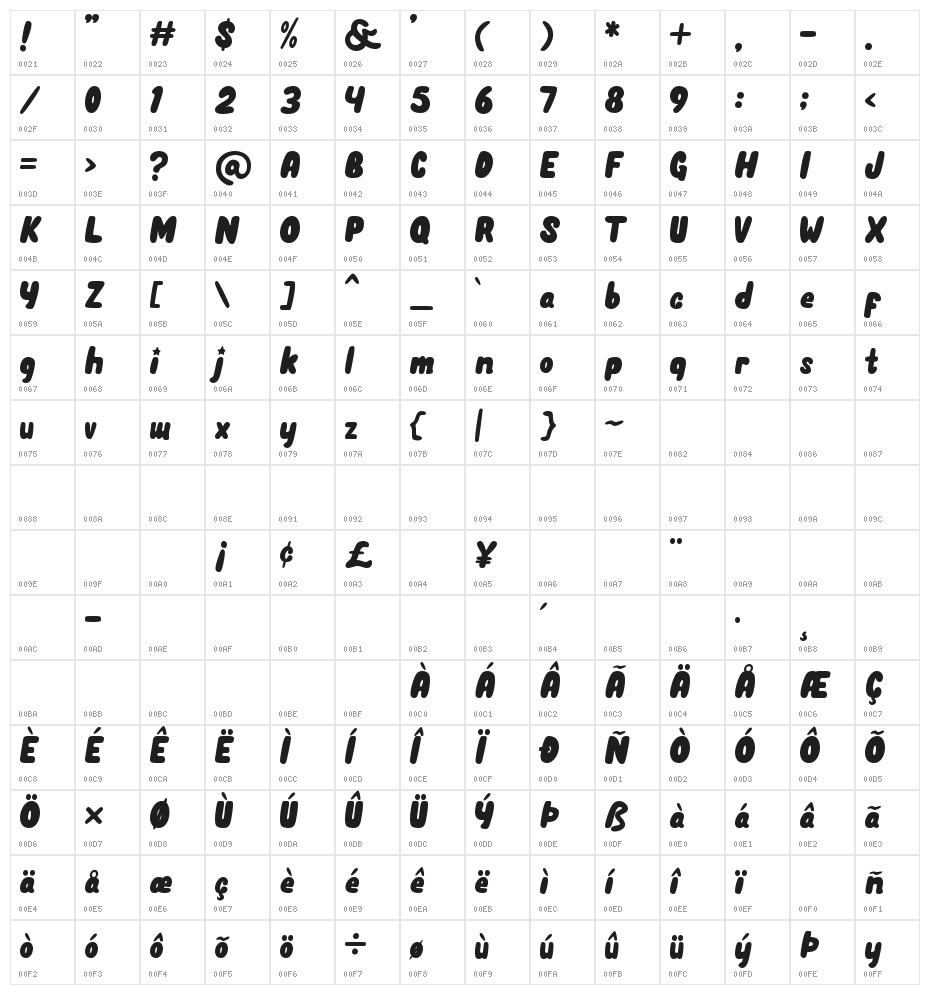
Unicorn Pop Font
Unicorn Pop Description
This playful and bold font features rounded, bubbly characters that convey a sense of fun and whimsy. The letters are thick and consistent in weight, with smooth curves and a slightly informal appearance. The uppercase and lowercase letters maintain a cohesive style, while the numerals and special characters complement the overall design. The font's unique charm is enhanced by the inclusion of star accents on certain characters, adding a touch of magic and creativity. Its bold presence makes it suitable for eye-catching designs that require a lively and energetic feel.
Overall StylePlayful, Whimsical
Proposed ProjectsIdeal for children's books, playful branding, party invitations, and creative posters.